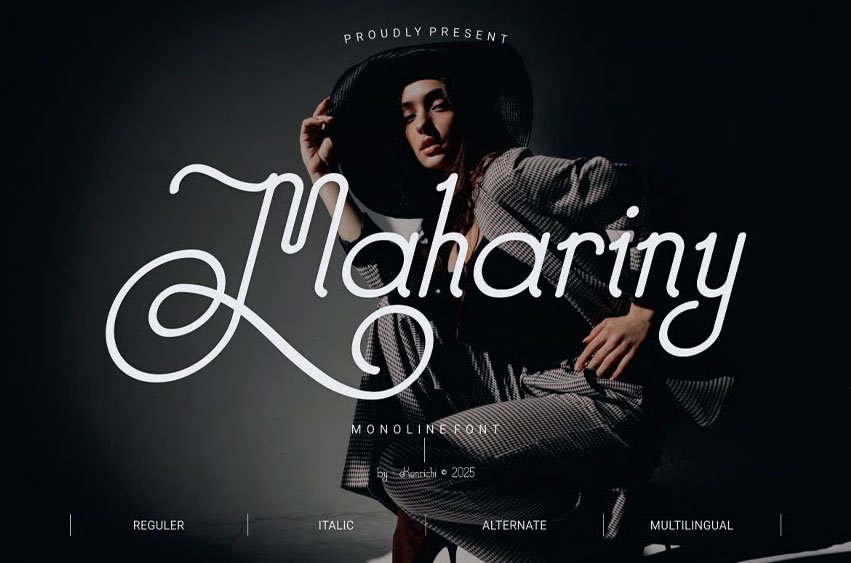
Maharany Font is a modern and authentic font. Perfect for both professional and branding needs of a product. This font is suitable for any branding project, such as quotes, logos, blog headers, posters, branding, letters, invitations, stationery, etc.
Designed as a versatile and flexible font that can be used on a range of projects and mediums. outstanding in a wide range of contexts.